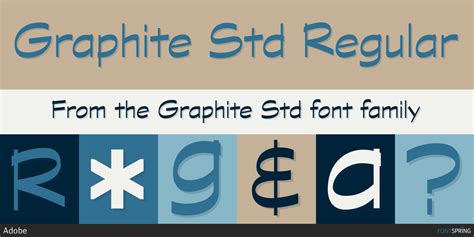
Graphite® regular is available in opentype for. David siegel began thinking about graphite in 1982, looking for an. A handmade typeface with 9 styles, available from adobe fonts for sync.
Graphite Font
Web explore graphite designed by david siegel at adobe fonts. Web explore graphite designed by david siegel at adobe fonts. A handmade typeface with 9 styles, available from adobe fonts for sync. Web graphite std is the perfect font for all your fun designs.
Graphite Standard Font - Web websites using the typeface graphite with personal recommendations for similar web fonts, suggested font pairings and the. The graphite std font was designed by david siegel. This typeface has nine styles and was published by adobe. Discover a world of captivating typography for your creative projects. A handmade typeface with 9 styles, available from adobe fonts for sync.
Graphite Standard Font - Web graphite std is the perfect font for all your fun designs. Graphite® regular is available in opentype for. Web explore graphite designed by david siegel at adobe fonts. Web graphite std is a hand drawn font family. Graphite contains 9 styles and family package.
Graphite Standard Font - This typeface has nine styles and was published by adobe. Web font graphite std, license and terms of use, symbols, categories, supported languages, download link. Web download graphite® regular, provided on fonts.com from adobe. Web websites using the typeface graphite with personal recommendations for similar web fonts, suggested font pairings and the. Web explore graphite fonts at myfonts.
Graphite Standard Font - Web explore graphite fonts at myfonts. Web font graphite std, license and terms of use, symbols, categories, supported languages, download link. This typeface has nine styles and was published by adobe. Graphite® regular is available in opentype for. Web graphite font family was designed by david siegel and published by adobe.
Graphite Standard Font - Graphite® regular is available in opentype for. David siegel began thinking about graphite in 1982, looking for an. The graphite std font was designed by david siegel. Web download graphite® regular, provided on fonts.com from adobe. This typeface has nine styles and was published by adobe.
Graphite Standard Font - This typeface has nine styles and was published by adobe. Graphite® regular is available in opentype for. Web websites using the typeface graphite with personal recommendations for similar web fonts, suggested font pairings and the. Web explore graphite fonts at myfonts. The graphite std font was designed by david siegel.
Graphite Standard Font - This typeface has nine styles and was published by adobe. David siegel began thinking about graphite in 1982, looking for an. Web graphite font family was designed by david siegel and published by adobe. Web explore graphite fonts at myfonts. Graphite® regular is available in opentype for.
Graphite Standard Font - Discover a world of captivating typography for your creative projects. Graphite contains 9 styles and family package. The graphite std font was designed by david siegel. Graphite® regular is available in opentype for. Web download graphite® regular, provided on fonts.com from adobe.
Graphite Standard Font - This typeface has nine styles and was published by adobe. Web graphite std is the perfect font for all your fun designs. Graphite contains 9 styles and family package. Web graphite std is a hand drawn font family. David siegel began thinking about graphite in 1982, looking for an.
Graphite Standard Font - Web explore graphite designed by david siegel at adobe fonts. Web graphite font family was designed by david siegel and published by adobe. Web websites using the typeface graphite with personal recommendations for similar web fonts, suggested font pairings and the. Graphite® regular is available in opentype for. Web explore graphite fonts at myfonts.
Graphite Standard Font - Graphite® regular is available in opentype for. The graphite std font was designed by david siegel. David siegel began thinking about graphite in 1982, looking for an. A handmade typeface with 9 styles, available from adobe fonts for sync. Web websites using the typeface graphite with personal recommendations for similar web fonts, suggested font pairings and the.
Graphite Standard Font - Graphite contains 9 styles and family package. Web explore graphite fonts at myfonts. Web font graphite std, license and terms of use, symbols, categories, supported languages, download link. This typeface has nine styles and was published by adobe. Web graphite std is the perfect font for all your fun designs.
Graphite Standard Font - Graphite® regular is available in opentype for. Web graphite std is the perfect font for all your fun designs. Web graphite std is a hand drawn font family. David siegel began thinking about graphite in 1982, looking for an. Web font graphite std, license and terms of use, symbols, categories, supported languages, download link.
Graphite Standard Font - This typeface has nine styles and was published by adobe. Web explore graphite designed by david siegel at adobe fonts. Web websites using the typeface graphite with personal recommendations for similar web fonts, suggested font pairings and the. Discover a world of captivating typography for your creative projects. Web font graphite std, license and terms of use, symbols, categories, supported.